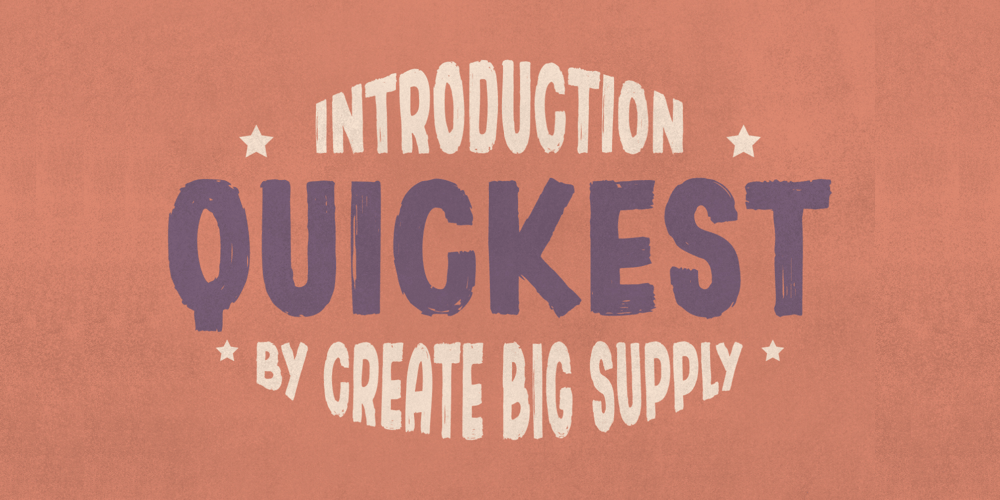
Quickest Font Family was designed by Irpan Maulana and published by Create Big Supply. Quickest contains 1 styles and family package options. Introducing Quickest, a bold and powerful sans serif brush font that will make your designs stand out. With its strong and distinctive characters, Quickest adds a unique touch to your projects, ensuring they grab attention and make an impact. This font is perfect for various design applications, including logos, headlines, posters, and social media graphics.Quickest features both uppercase and lowercase letters, providing flexibility and creative freedom in your typographic compositions. The inclusion of numbers and punctuations allows for seamless integration into your designs, making it suitable for a wide range of projects.With multilingual support, Quickest ensures that your message can reach a global audience. It allows you to express yourself in different languages, opening up new possibilities for your design projects.The font is PUA encoded, enabling easy access to all the glyphs and swashes it offers. This means you can effortlessly incorporate decorative elements and flourishes into your designs, adding a touch of uniqueness and personality.